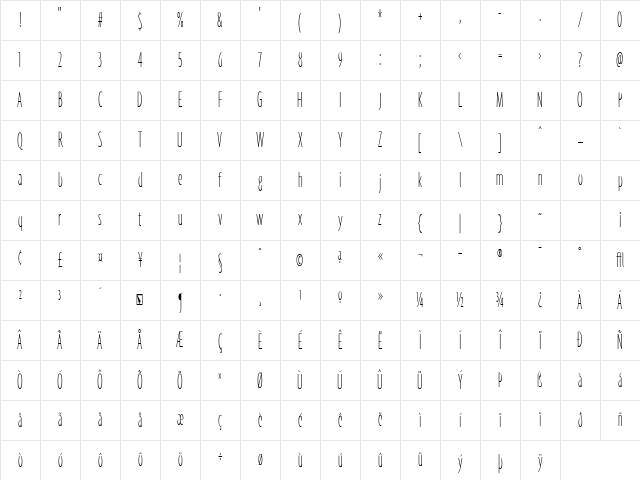
Agenda Regular
Foundry: Copr. Greg Thompson. Agenda is a Trademark of Greg Thompson. Produced by The Font Bureau, Inc
Design Context for Agenda
Agenda is a composed and adaptable typeface that performs quietly and consistently across a wide range of design contexts.
Who designed the Agenda Regular font?
This font was published by Copr. Greg Thompson. Agenda is a Trademark of Greg Thompson. Produced by The Font Bureau, Inc. Check the technical specs section for copyright and designer details.